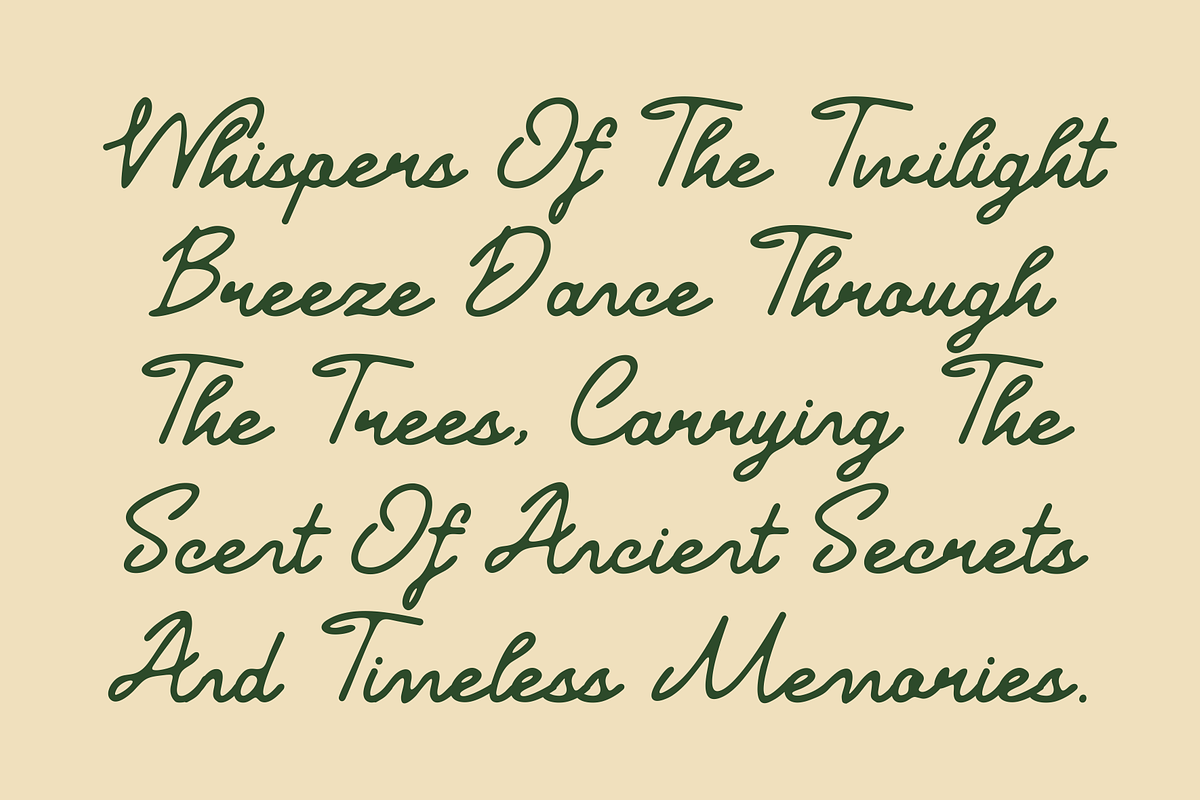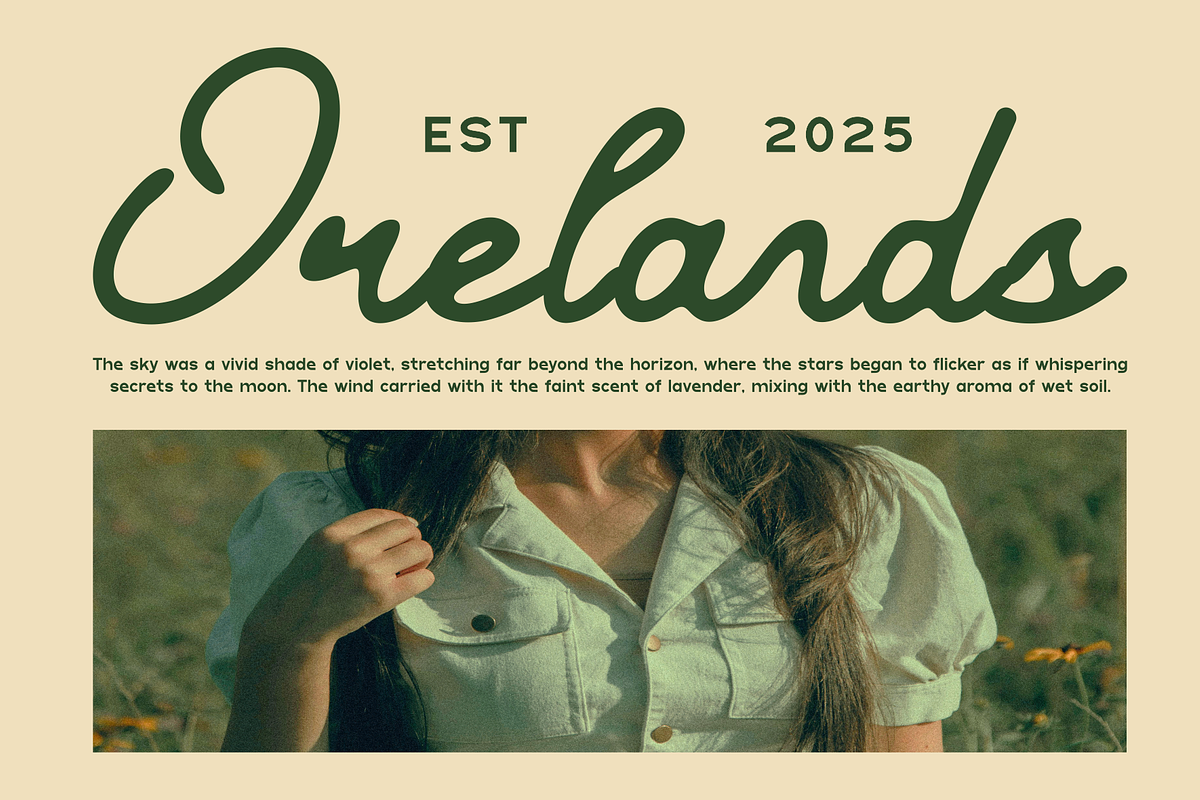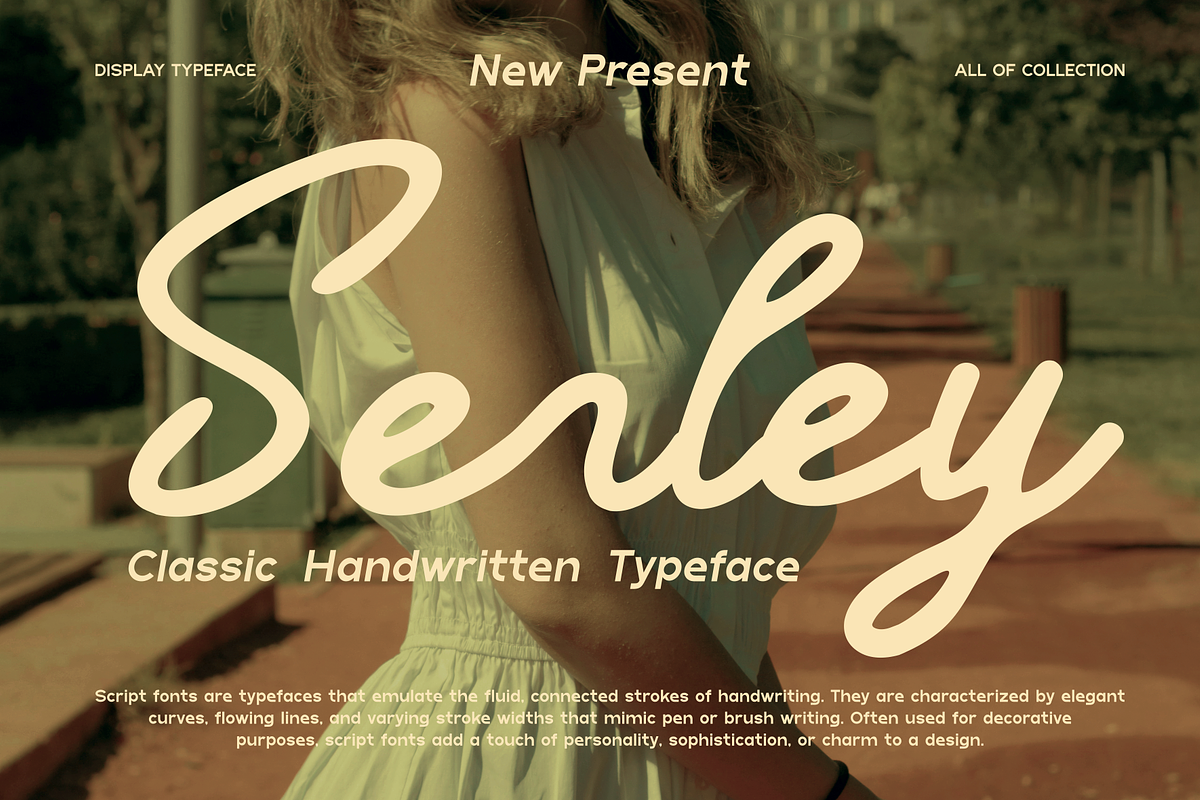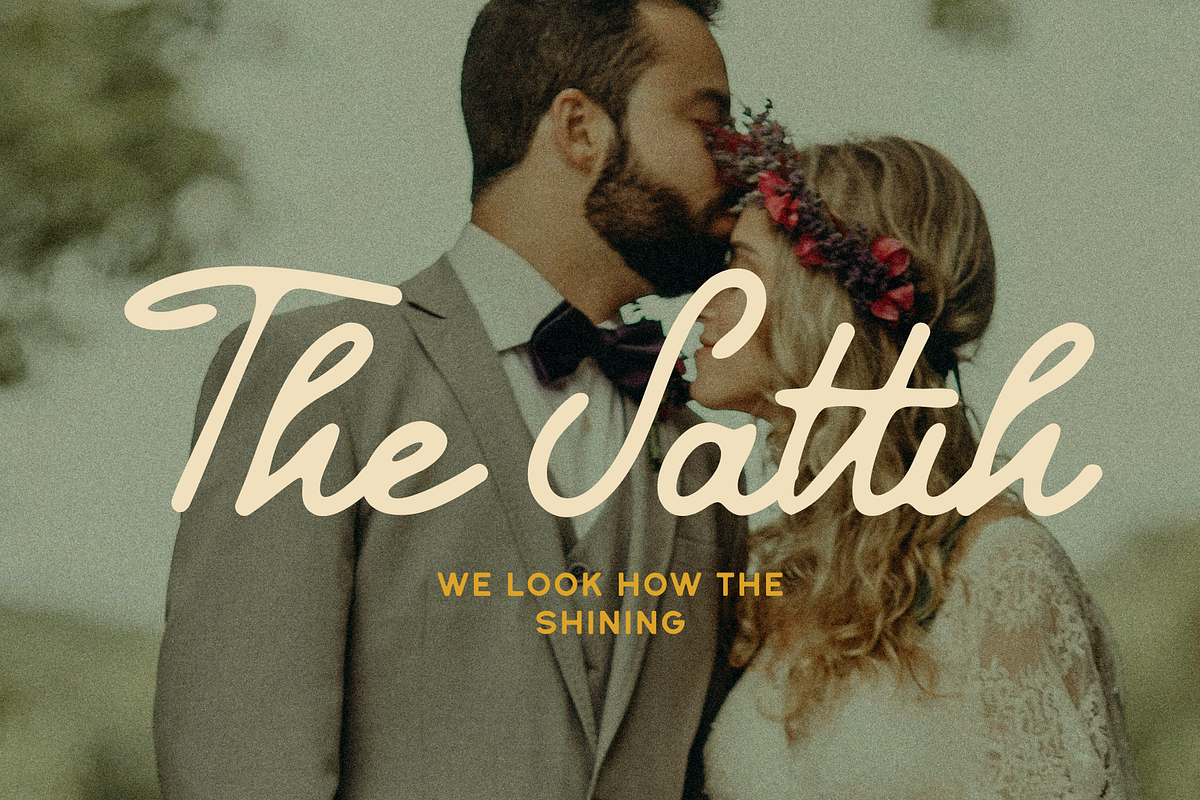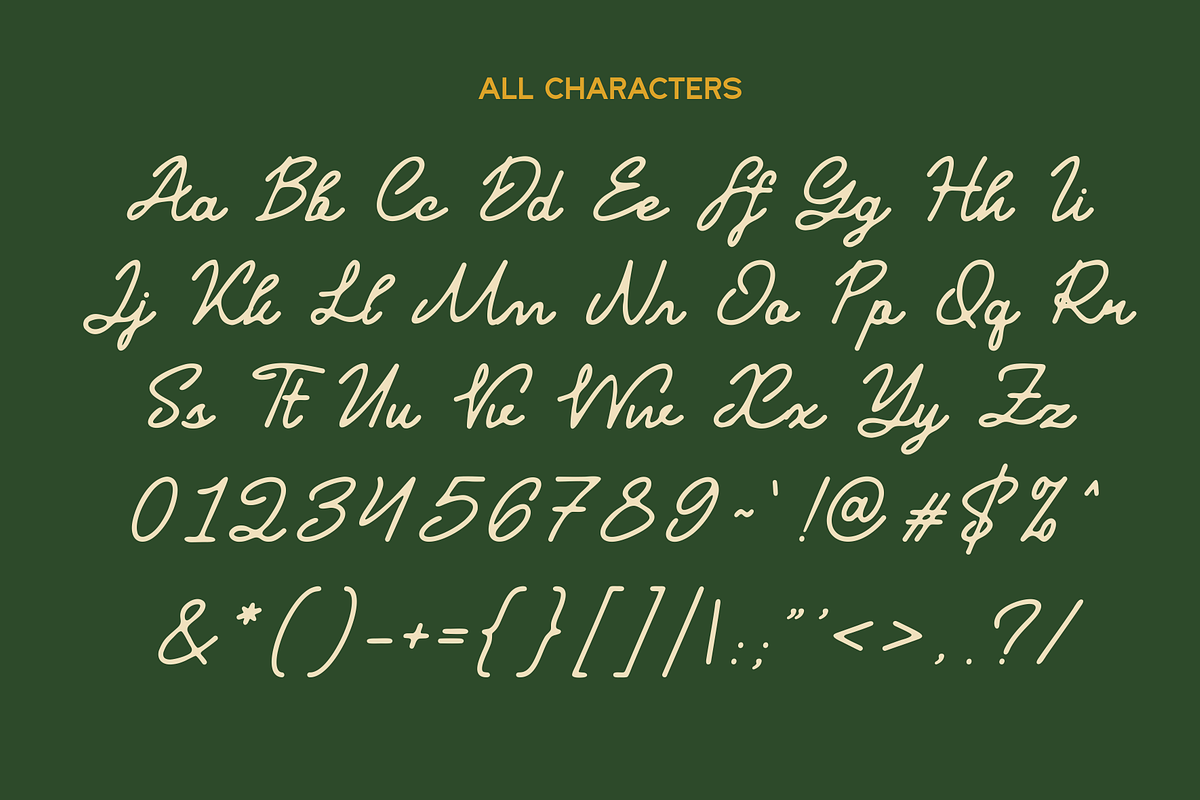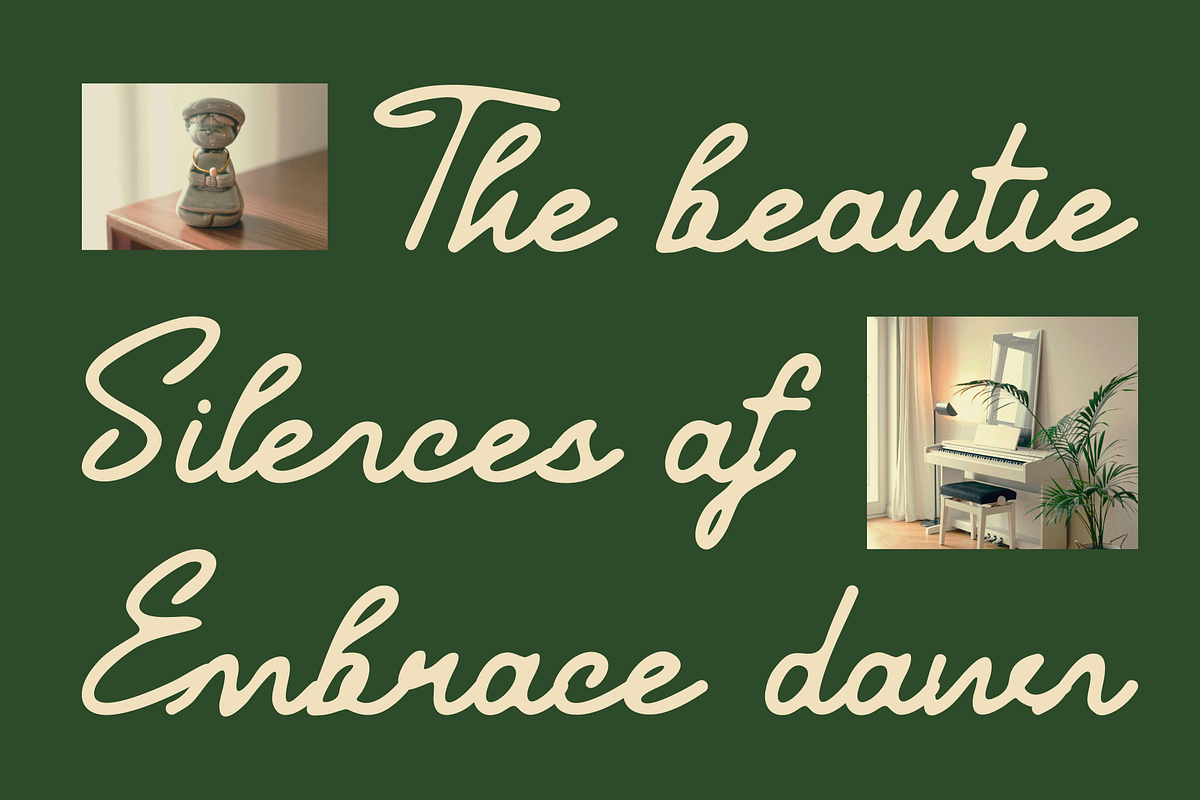
Senley -Classic Handwritten Typeface
Introducing our new product Senley - Classic Handwritten Typeface
Senley - is a very flexible choice and can be used in a variety of design contexts. Its ability to provide a clean, professional, contemporary look and its simplicity and visual appeal make this font good for use in the world of graphic design and modern typography.